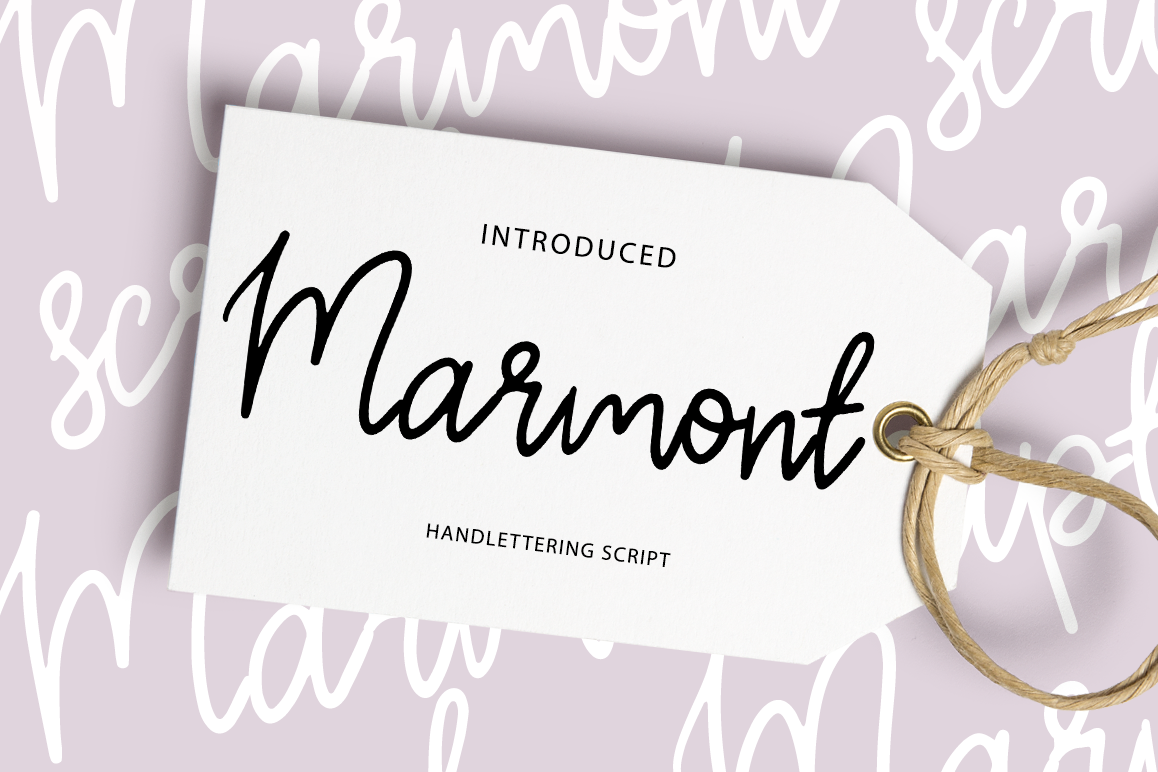
Marmont script
Meet my new Marmont handlettering scriptPerfect for adding a elegant and unique touch to your lettering projects and branding. Every single letters have been carefully crafted to make your text looks beautiful. With lettering script style this font will perfect for many different project ex: quotes, blog header, poster, wedding, branding, logo, fashion, apparel, letter, invitation, stationery, etc.Zip included:
Marmont script